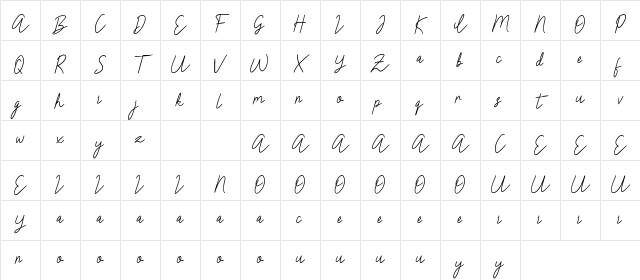
Claressa Demo Regular Free Font
Claressa Demo Regular
Foundry: Edric Studio
Designer: Fahri Firdaus & Suci Anita
Design Context for Claressa Demo
Claressa Demo is a composed and adaptable typeface that performs quietly and consistently across a wide range of design contexts.